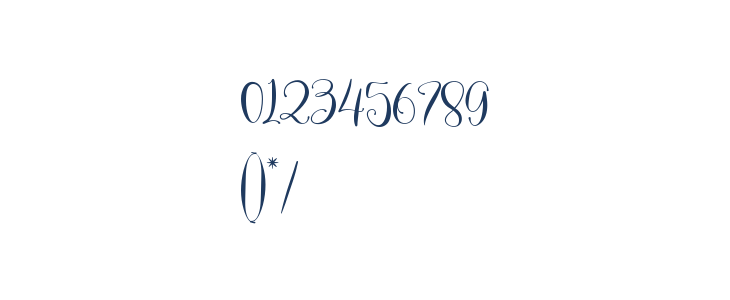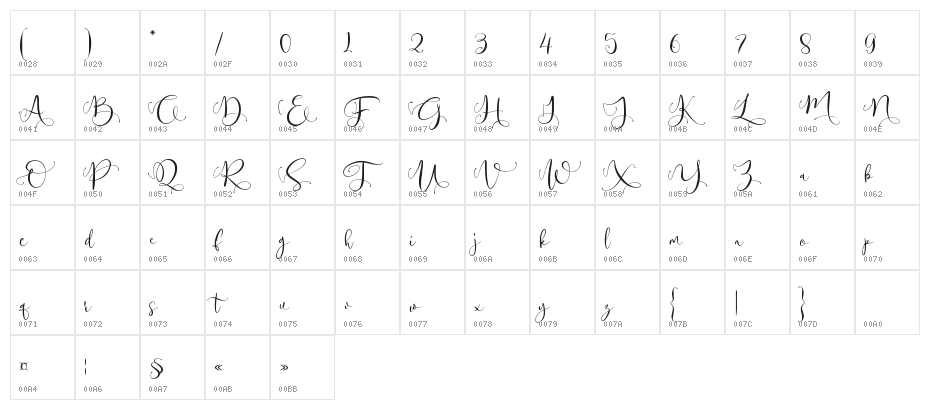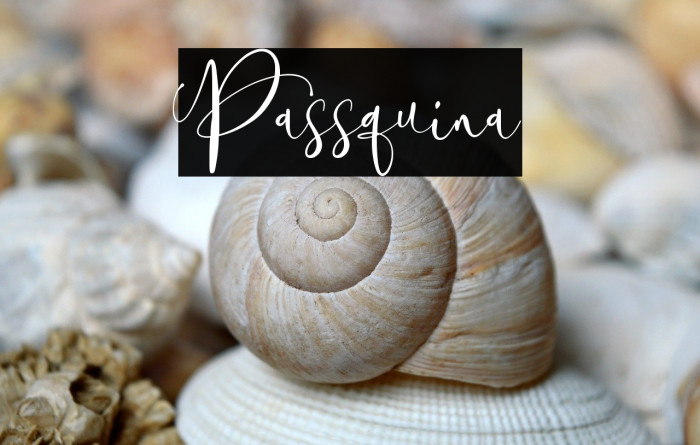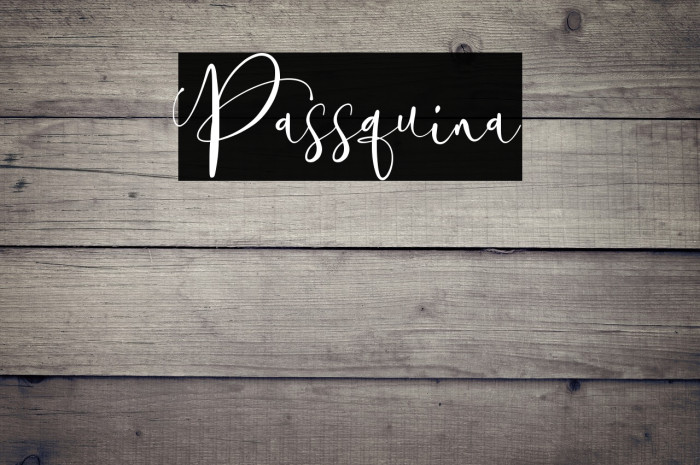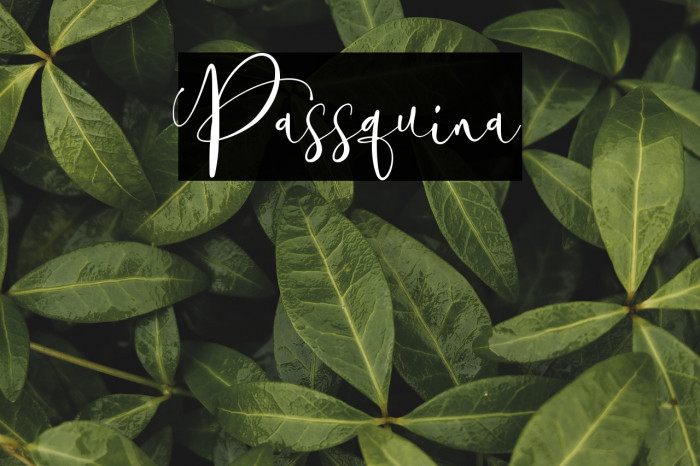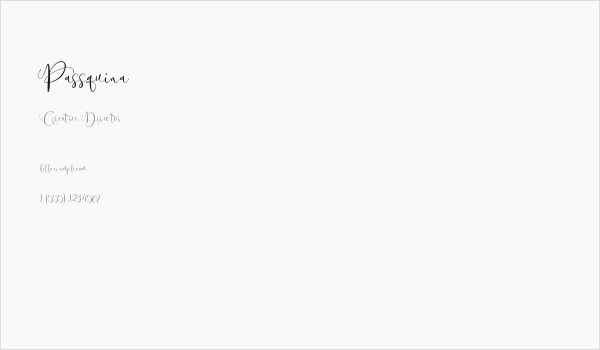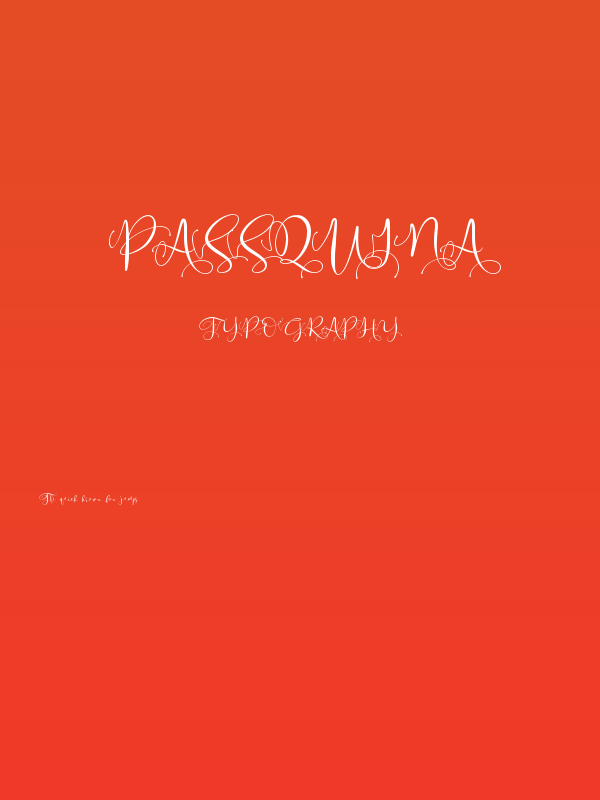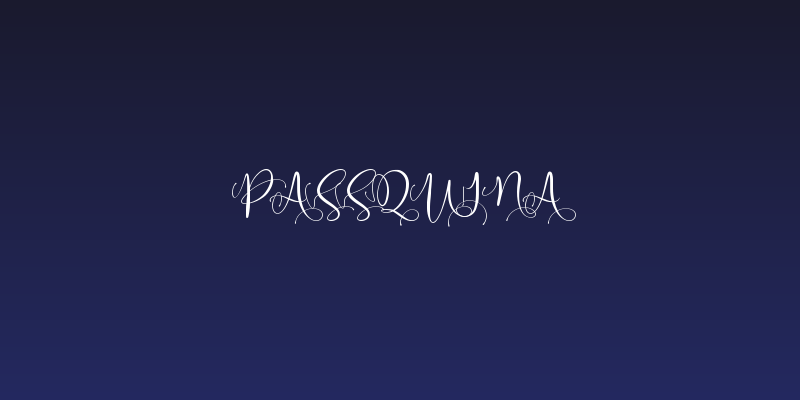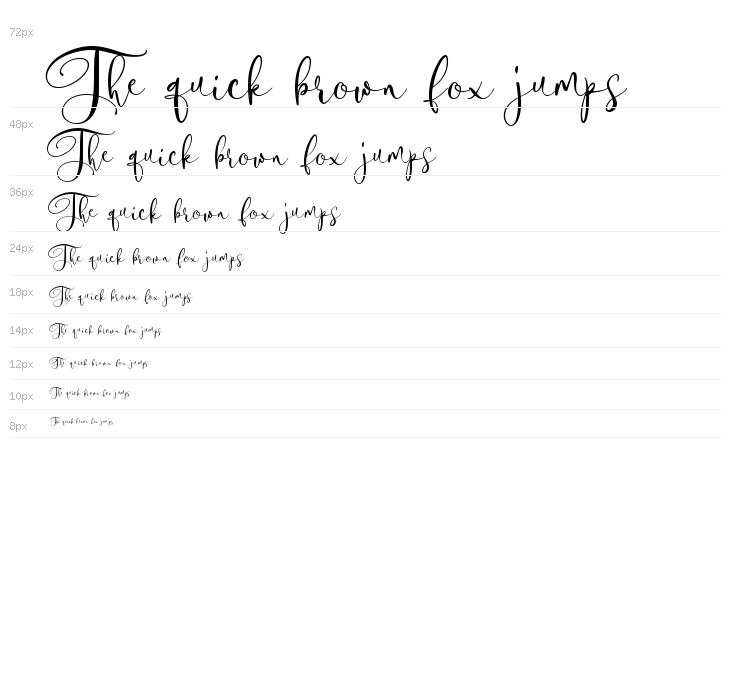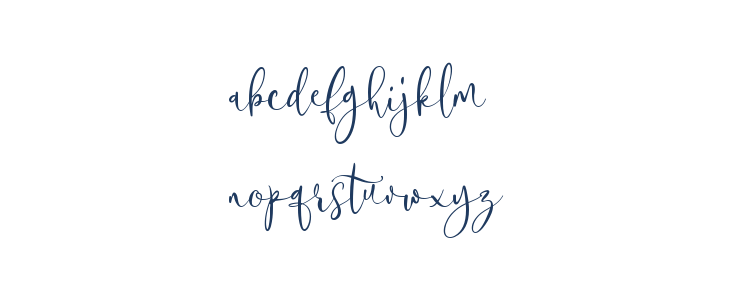
Passquina Font
Passquina Description
This font exudes elegance and sophistication with its flowing, cursive style. The letters are intricately designed with elaborate swashes and flourishes, giving it a highly decorative appearance. The uppercase letters are particularly ornate, featuring extended loops and curves that add a sense of movement and grace. The lowercase letters maintain a consistent style, with smooth, rounded forms that complement the uppercase. The numerals are equally stylish, with a slight slant that matches the overall cursive theme. Special characters are designed with the same attention to detail, ensuring a cohesive look across all glyphs. This font is perfect for projects that require a touch of elegance and flair.
| Proposed Projects | Ideal for wedding invitations, luxury branding, greeting cards, and elegant packaging designs. |